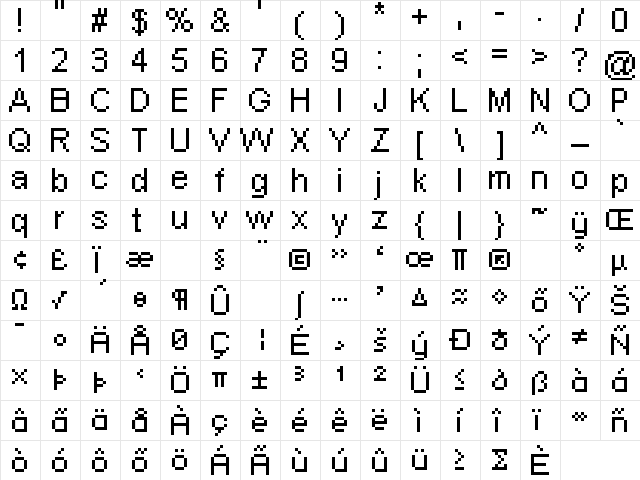
Pixel Arial 11 Regular
Design Context for Pixel Arial 11 Typeface
Pixel Arial 11 celebrates the constraints of early digital type, turning pixel geometry into a distinctive and immediately recognisable style.
Well-suited to indie game interfaces, retro computing aesthetics, and pixel art-adjacent design work.
Pro Tip: Use Pixel Arial 11 at sizes that align with its pixel grid for the sharpest rendering — scaling to non-integer multiples can introduce unwanted blur.